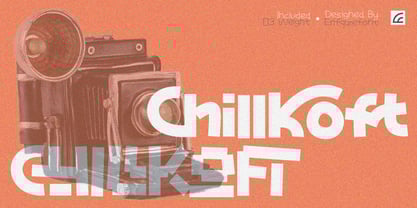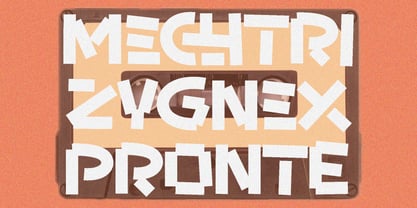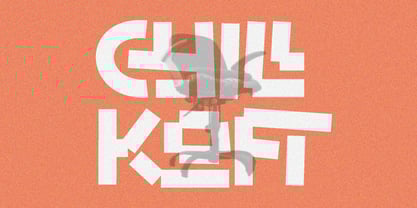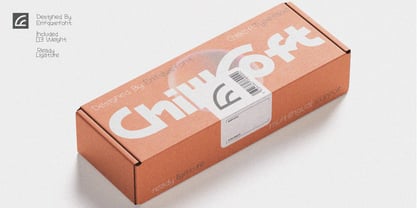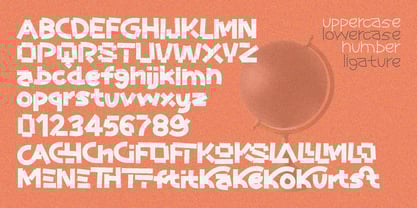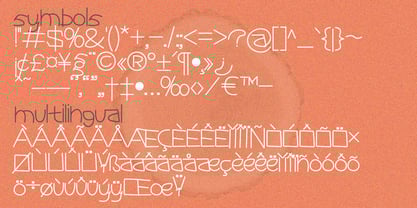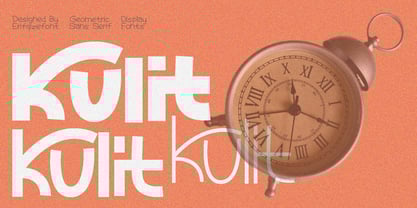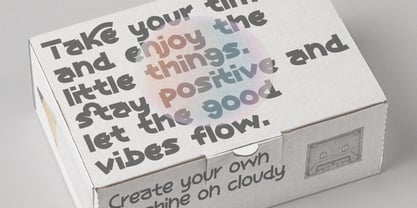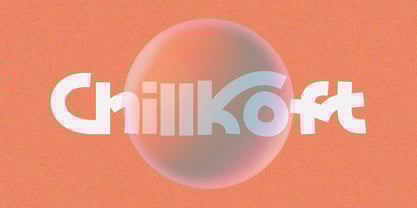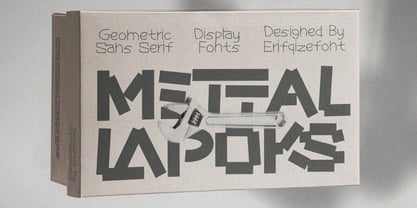
Chillkoft
by Erifqizefont
The Chillkoft Font Family was designed by Eka Rifqi Setiawan and published by Erifqizefont. Chillkoft contains 3 styles and family package options.
Chillkoft is a bold and playful display typeface inspired by retro aesthetics and geometric shapes. Designed with smooth curves and chunky letterforms, this font delivers a strong visual impact while maintaining a friendly and modern feel. Its unique character structure makes it ideal for eye-catching typography and creative branding. Chillkoft comes with three weights—Thin, Medium, and Bold—allowing you to create dynamic typographic compositions with a consistent visual style. The combination of rounded forms and distinctive geometric shapes gives this typeface a strong retro personality while still feeling fresh and contemporary. It works perfectly for logos, posters, branding, packaging, headlines, advertising, and social media graphics, making it suitable for a wide range of creative projects that require a bold and distinctive display font.
Introducing Erifqizefont, a Foundry led by Eka Rifqi Setiawan. Originating from Eka's experience as an Icon Designer, Erifqizefont specializes in bold, symmetrical Display Fonts with futuristic elements, occasionally exploring retro and whimsical styles. Based in Indonesia, Erifqizefont integrates the nation's cultural heritage into its designs. As a sole proprietor, Eka focuses on crafting superior, unique fonts, setting Erifqizefont apart in the industry.